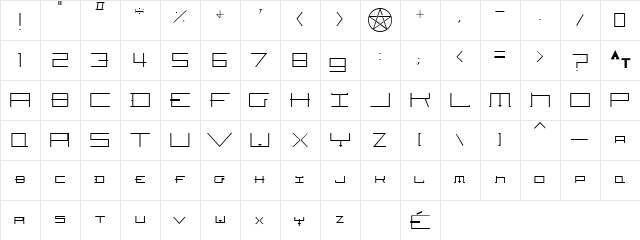
Hozenozzle New Regular
Design Context for Hozenozzle New Typeface
Hozenozzle New takes a measured approach to typography — its balanced proportions and neutral character make it a reliable workhorse for both digital and print work.